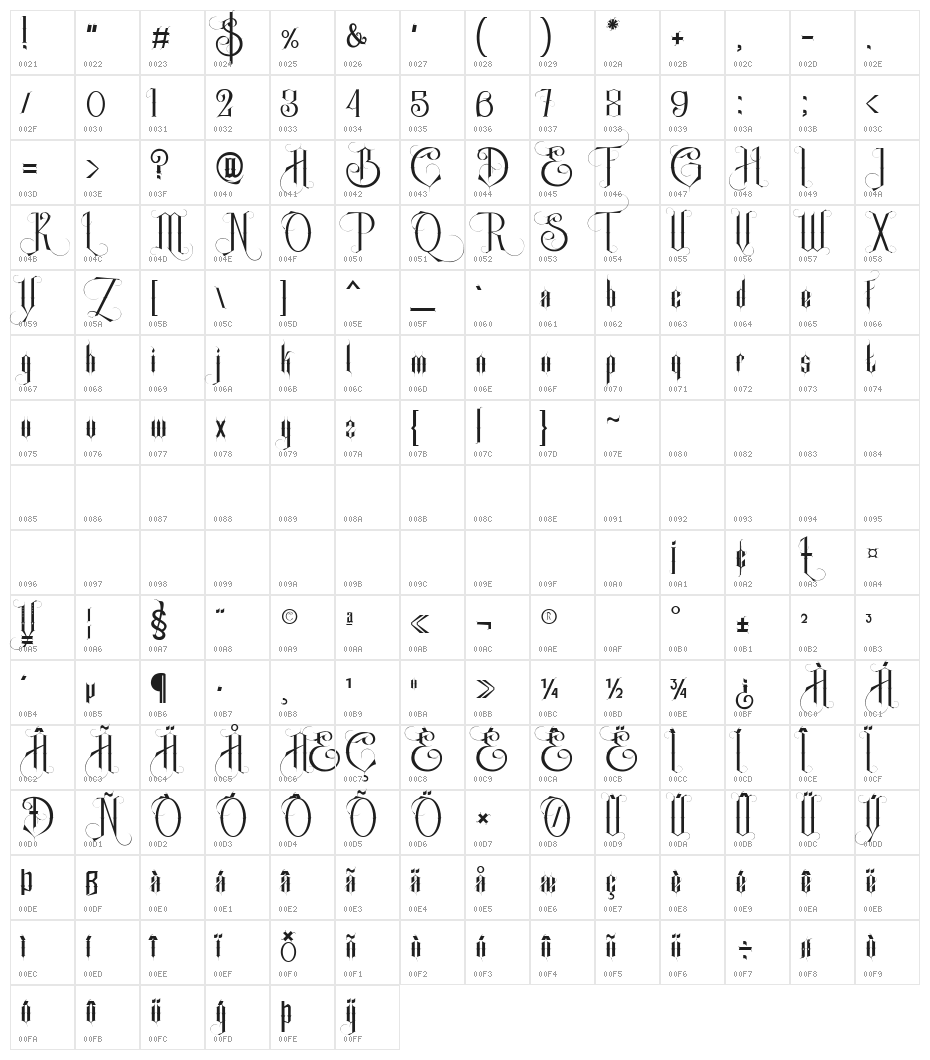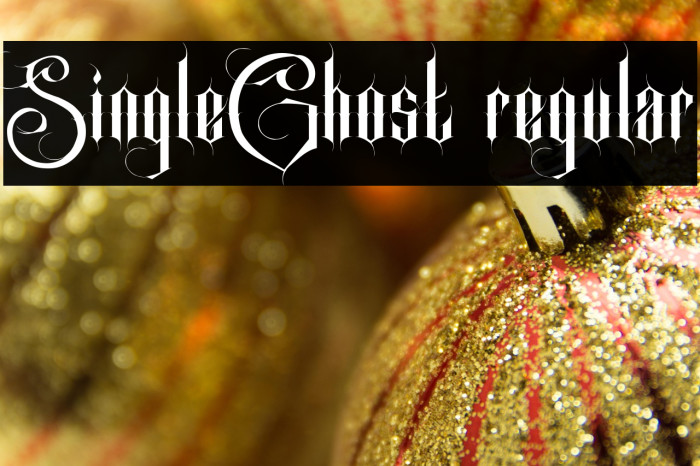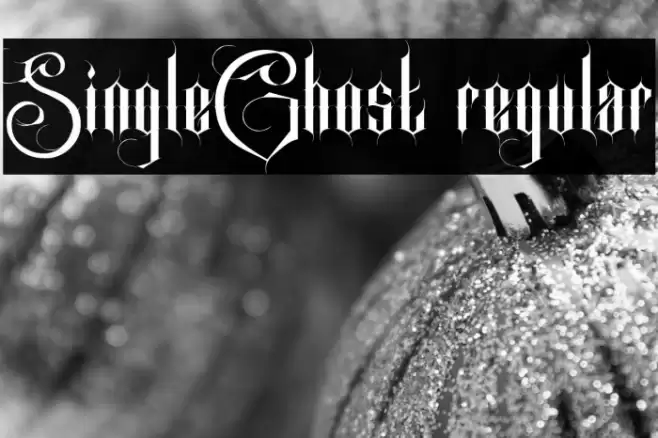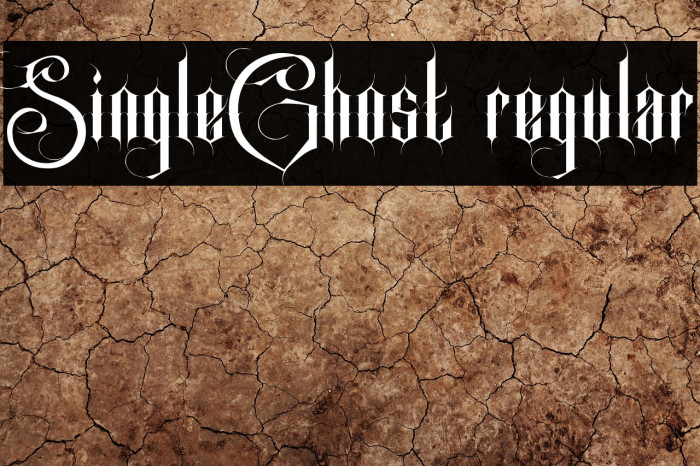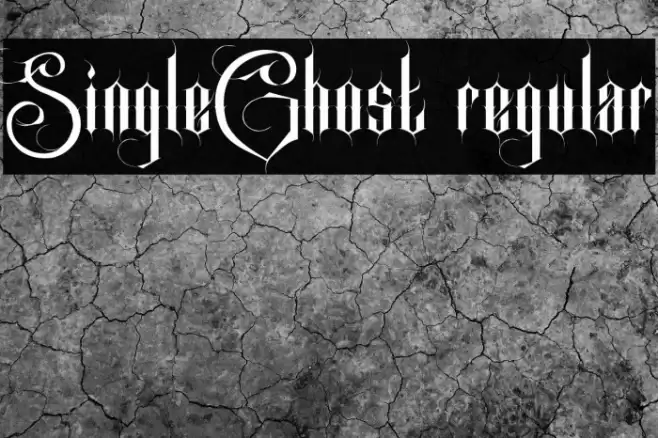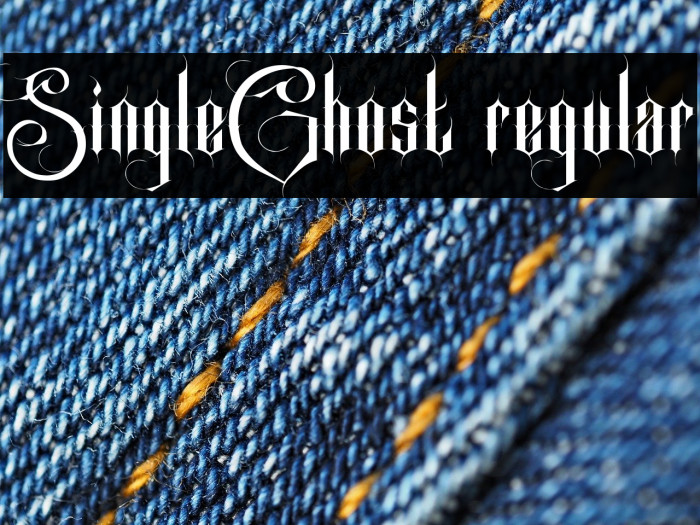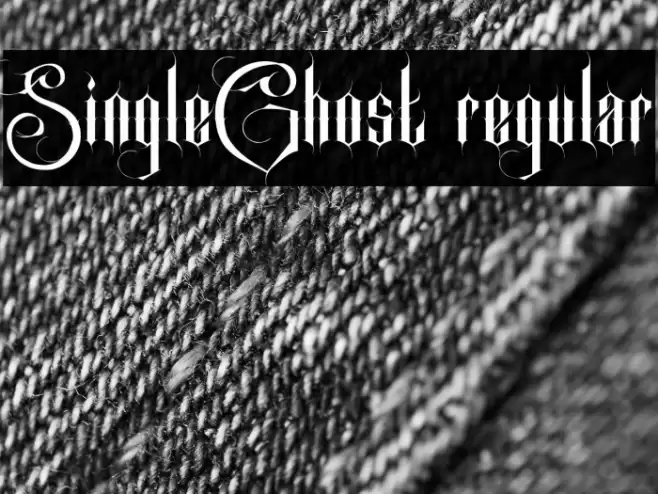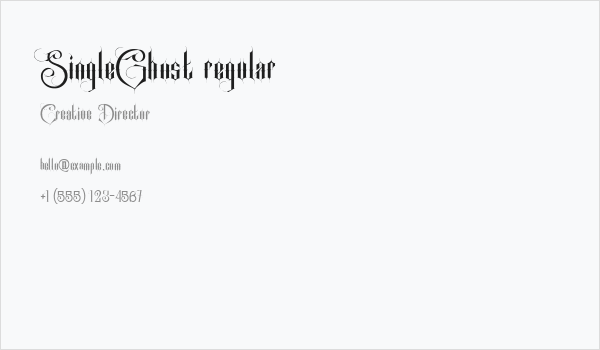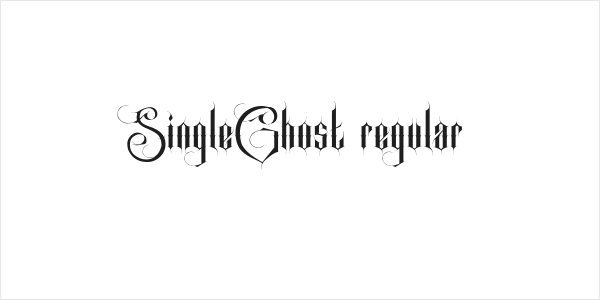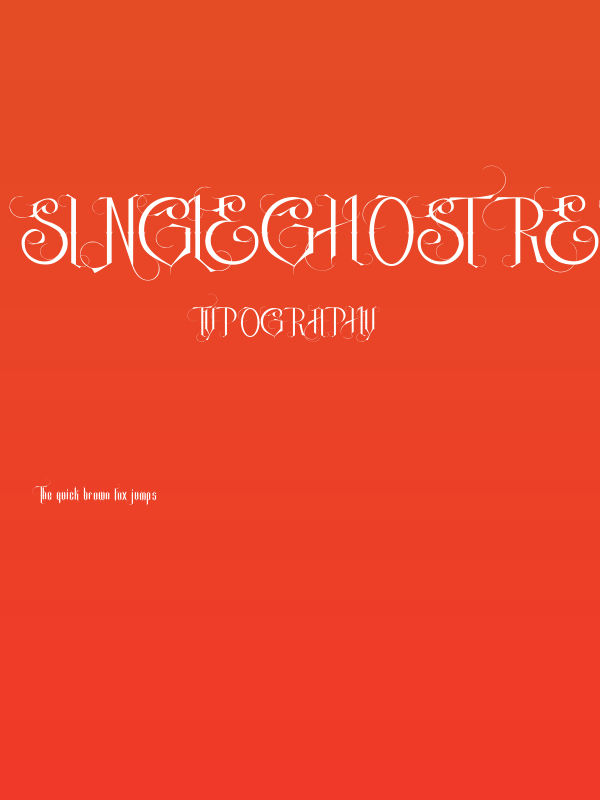
SingleGhost regular Font
SingleGhost regular Description
This font features a striking blend of Gothic and modern design elements, characterized by its sharp, angular serifs and intricate detailing. The uppercase letters exhibit a bold, authoritative presence with a high contrast between thick and thin strokes, while the lowercase letters maintain a more condensed and ornate appearance. The numerals and special characters continue the theme with a consistent style that emphasizes elegance and sophistication. The overall aesthetic is both dramatic and refined, making it suitable for projects that require a touch of historical grandeur or a unique visual impact.